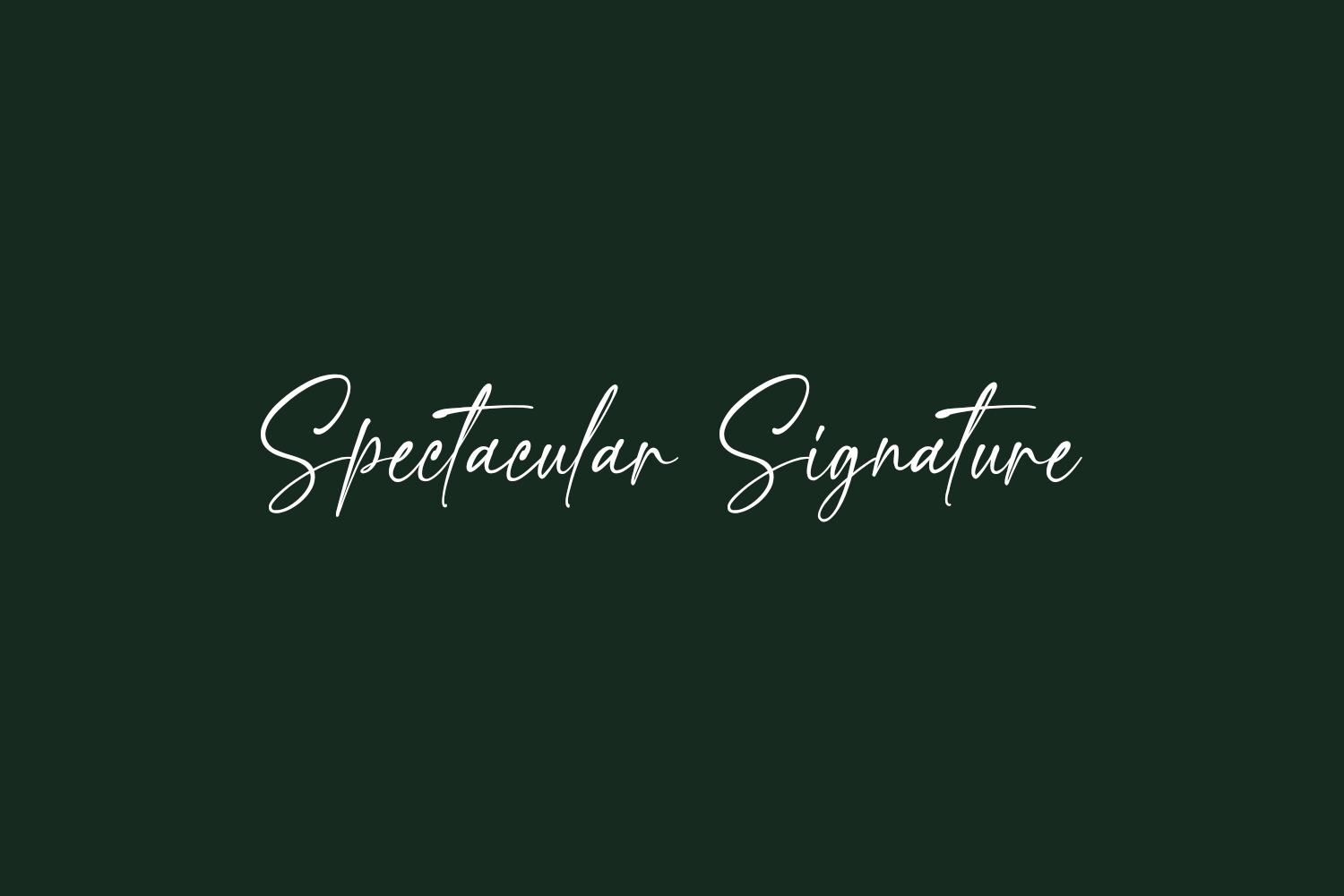
Spectacular Signature Free Font is a captivating handwritten font that brings an organic and authentic touch to your design projects. Whether you’re looking to create a memorable brand identity, craft a stylish signature, design wedding invitations, promote your products, or package them attractively, this font has got you covered.
With its fluid and natural letterforms, Spectacular Signature adds a personal and charming feel to your creations. Its versatility makes it suitable for a wide range of applications, ensuring that your branding efforts, invitations, promotions, and packaging designs leave a lasting impression. Spectacular Signature Free Font is free for personal use only. Please purchase the full version for commercial use.